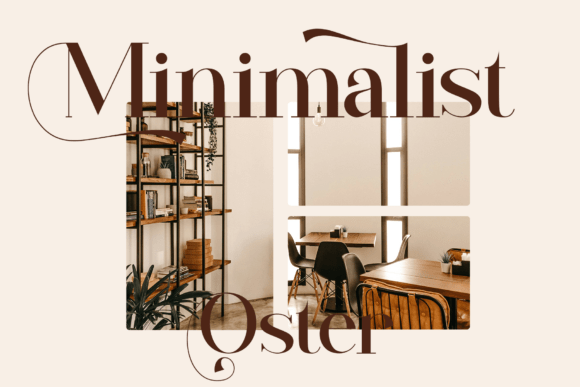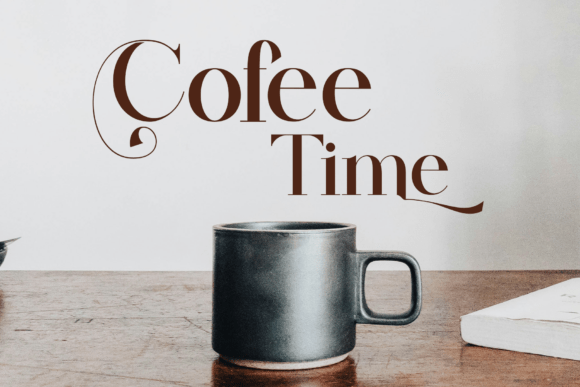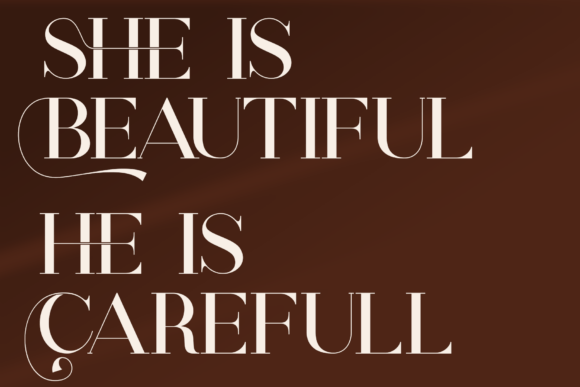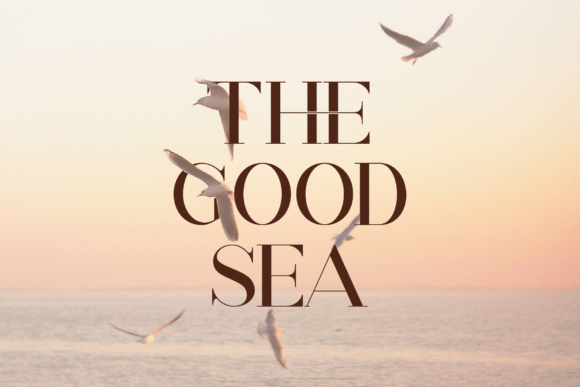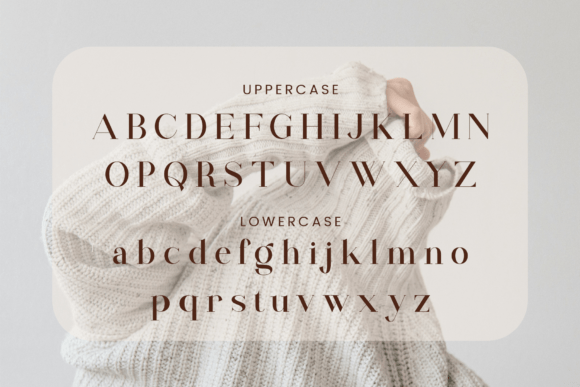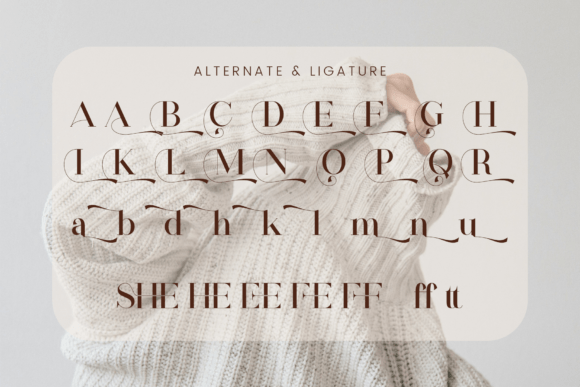
Introducing the Falshe Font: Elevate Your Design with High-Fashion Typography
The Falshe font is a stunning example of high-fashion typography, expertly blending sharp serifs with dramatic, sweeping swashes to create a truly unique and sophisticated typeface. This elegant font embodies the essence of “Quiet Luxury,” making it perfect for editorial layouts, high-end jewelry branding, and architectural portfolios.
A Study in Contrasts: The Anatomy of Falshe
One of the defining features of the Falshe font is its striking contrast between thick vertical bars and hairline-thin horizontals. This deliberate visual tension creates a sense of modernity while nodding to classical typography. The result is a typeface that feels both contemporary and timeless.
Intricate Ligatures and Flourishing Alternates
What sets the Falshe typeface apart is its intricate ligatures and flourishing alternates. These thoughtful design elements allow designers to craft custom-looking typography for every headline, giving their work an extra layer of sophistication and elegance. Whether you’re designing a magazine masthead, luxury real estate logo, or premium spa branding, the Falshe font provides the tools to create truly show-stopping typography.
Perfect for High-End Applications
The Falshe font is tailor-made for high-end applications where style and sophistication are paramount. Its precision-crafted strokes and beautiful curves make it ideal for:
- Editorial layouts: Elevate your magazine or editorial design with the Falshe font’s elegant, high-fashion aesthetic.
- High-end jewelry branding: Add a touch of luxury to your jewelry brand with the Falshe font’s sophisticated, high-end feel.
- Architectural portfolios: Showcase your architectural designs with a typeface that exudes elegance and refinement.
- Luxury real estate logos: Create a lasting impression with the Falshe font’s sleek, high-end design.
- Premium spa branding: Bring a sense of serenity and sophistication to your spa brand with the Falshe font.
Best Displayed at Large Sizes
To truly appreciate the Falshe font’s precision and beauty, it’s best displayed at large sizes. This allows the intricate details of the typeface to shine, making it perfect for headlines, titles, and other high-impact applications.
For the Designer Who Demands Perfection
The Falshe font is designed for the discerning designer who demands perfection in every character. With its “vogue” level of sophistication and attention to detail, this typeface is sure to impress even the most critical clients.
In conclusion, the Falshe font is a breathtaking example of high-fashion typography that embodies the essence of “Quiet Luxury.” With its elegant contrast, intricate ligatures, and flourishing alternates, this typeface is perfect for designers who demand perfection and sophistication in every character. Whether you’re working on editorial layouts, high-end jewelry branding, or architectural portfolios, the Falshe font is sure to elevate your design to new heights.